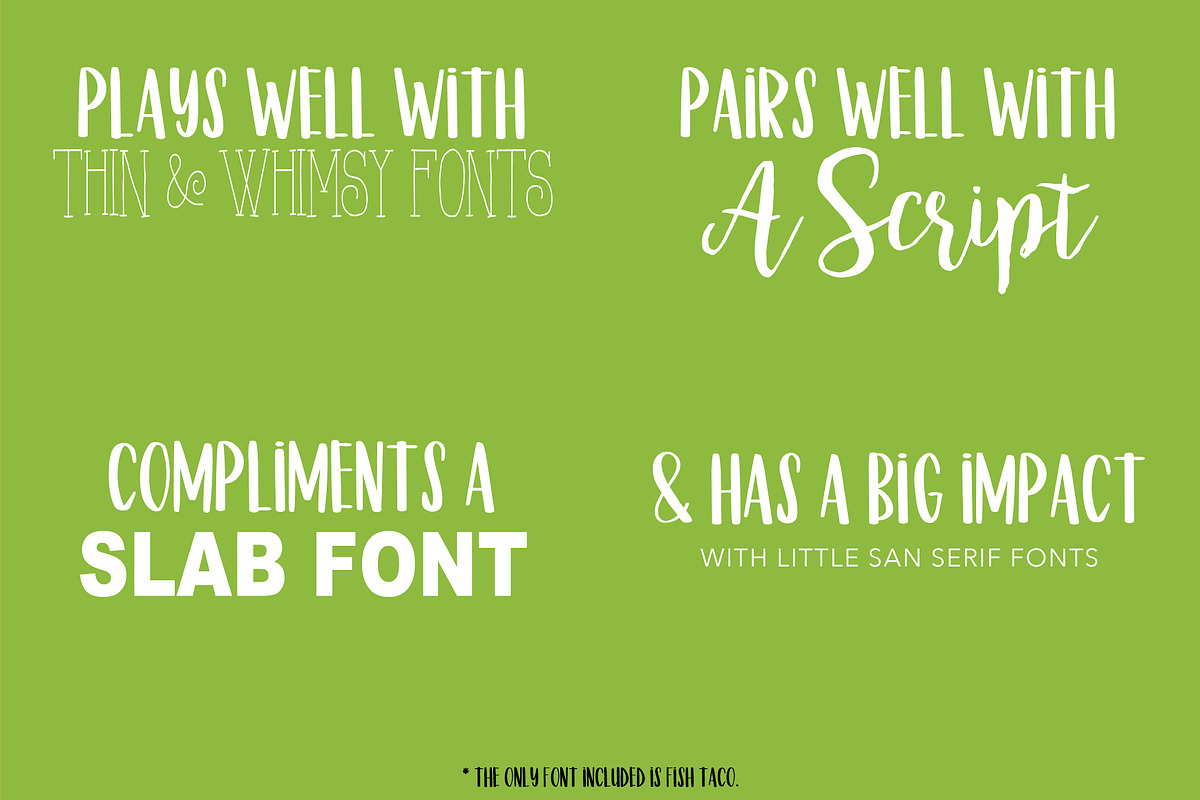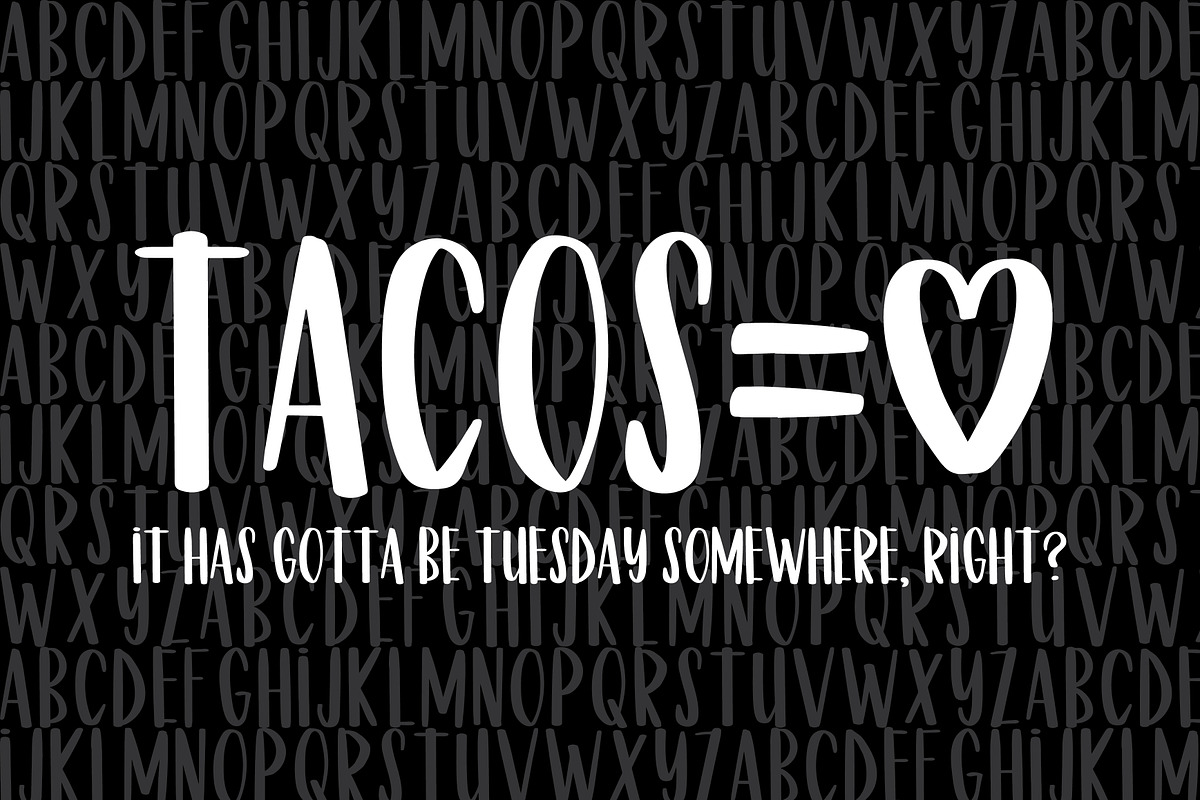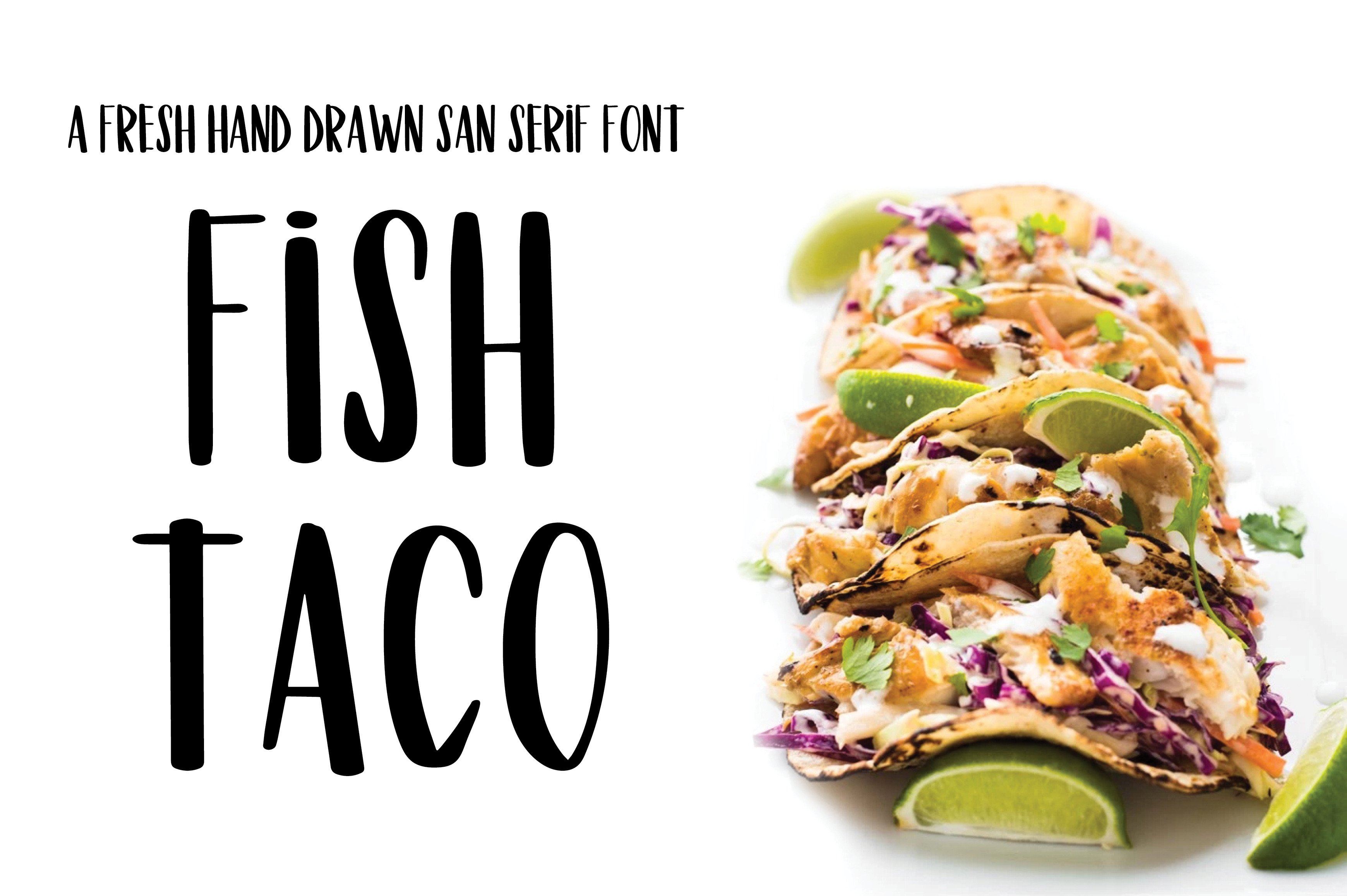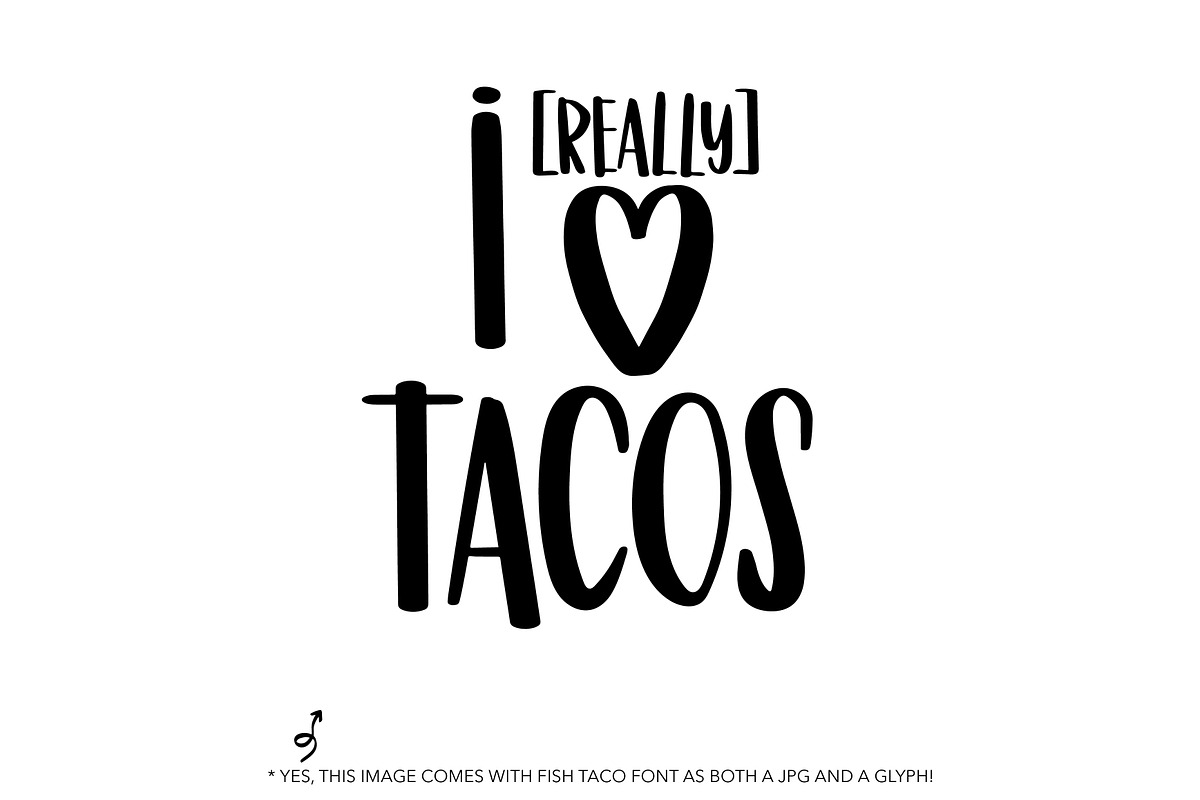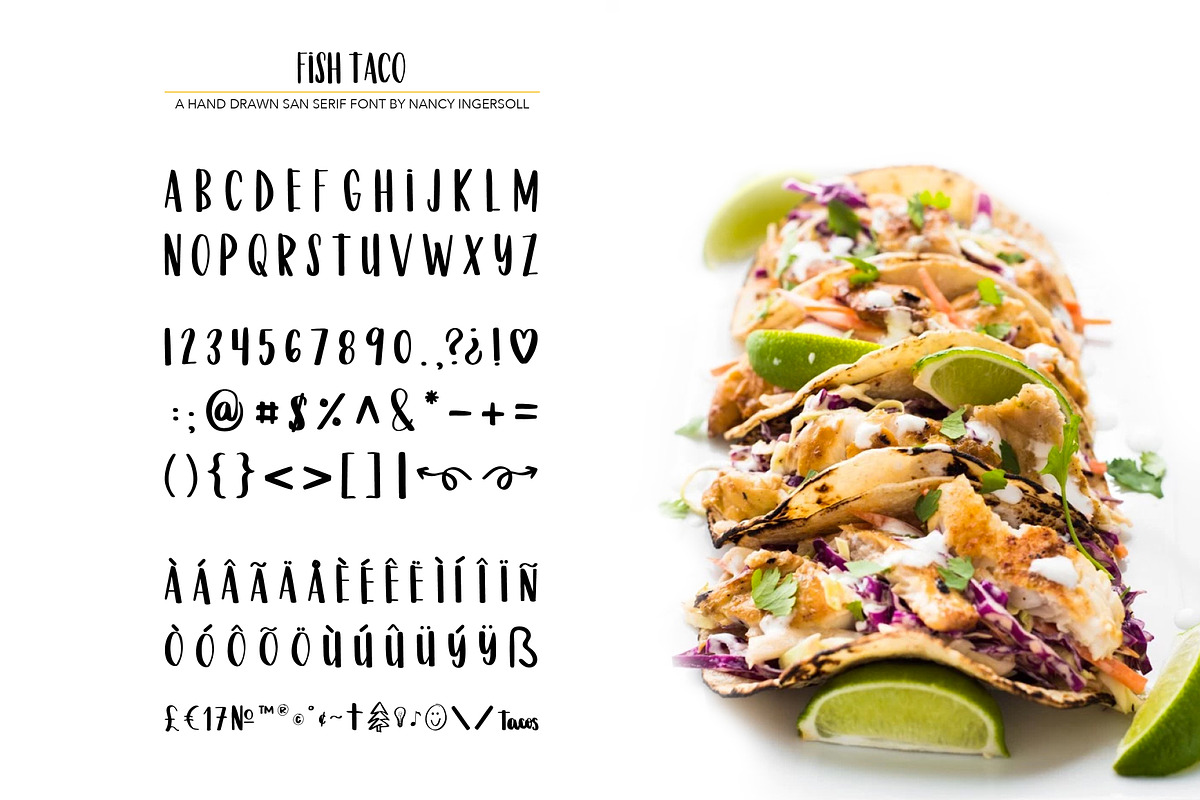
Fish Taco Font
Fish Taco is a handwritten font by Nancy Ingersoll. Designed to stand on its own but also goes with an abundance of other fonts.
This fun font maintains a clean line by keeping all of the ascenders and descenders within the lines. It is readable and goes well with a wide range of design styles. It also includes symbols used for other languages like the German Esstsett, and the British Pound and Euro symbol. In addition to the letters, numerals and symbols to get the job done, this font also comes with bonus glyphs to express its playful nature.